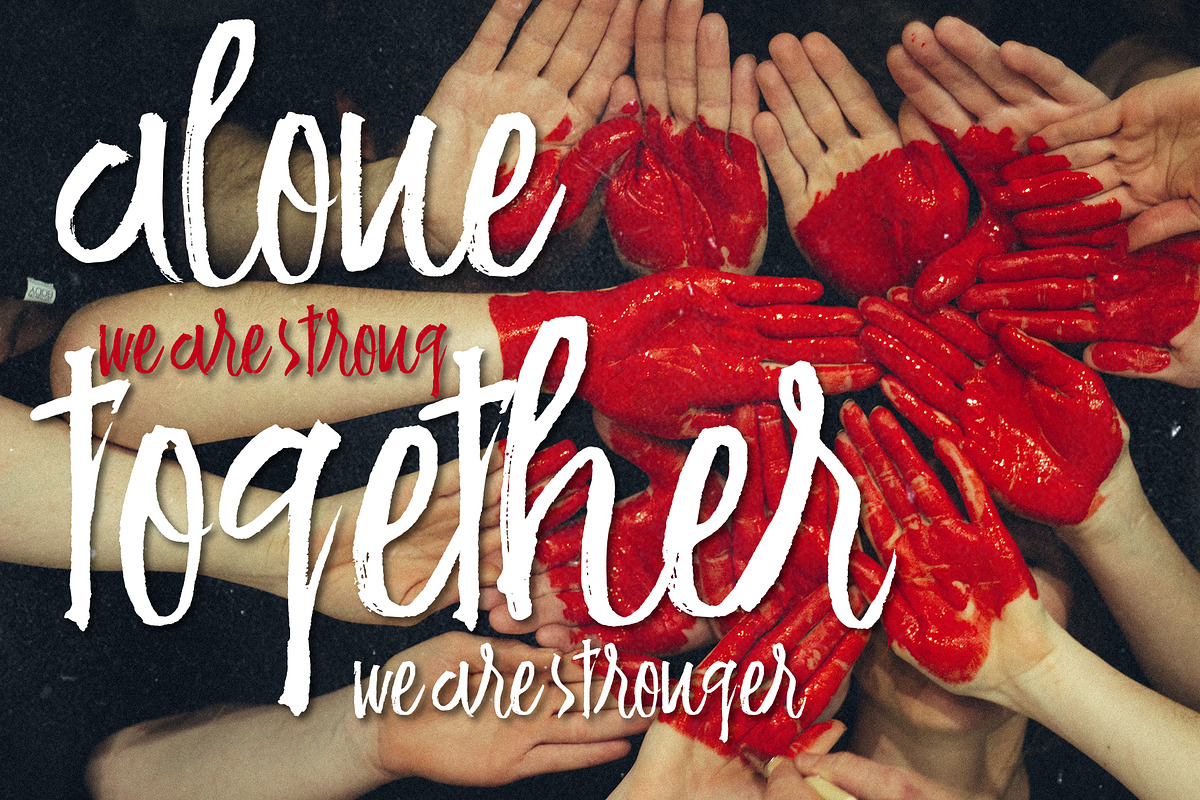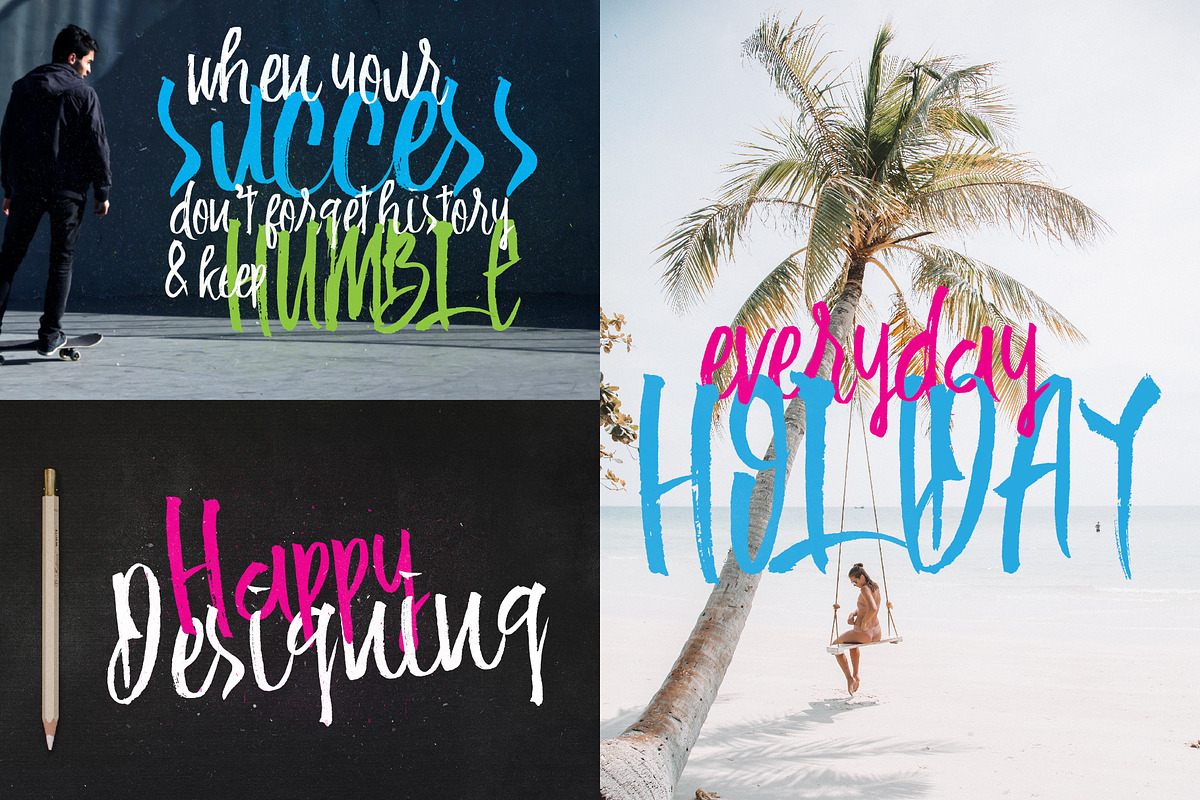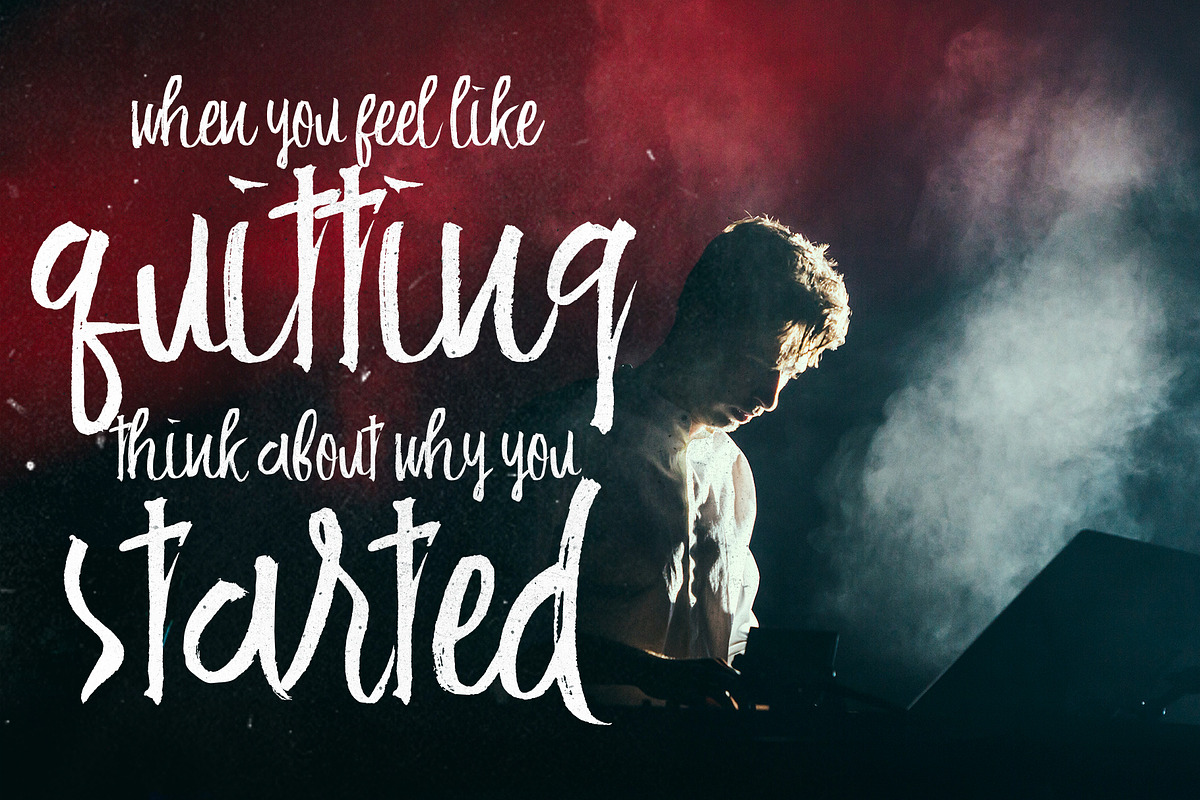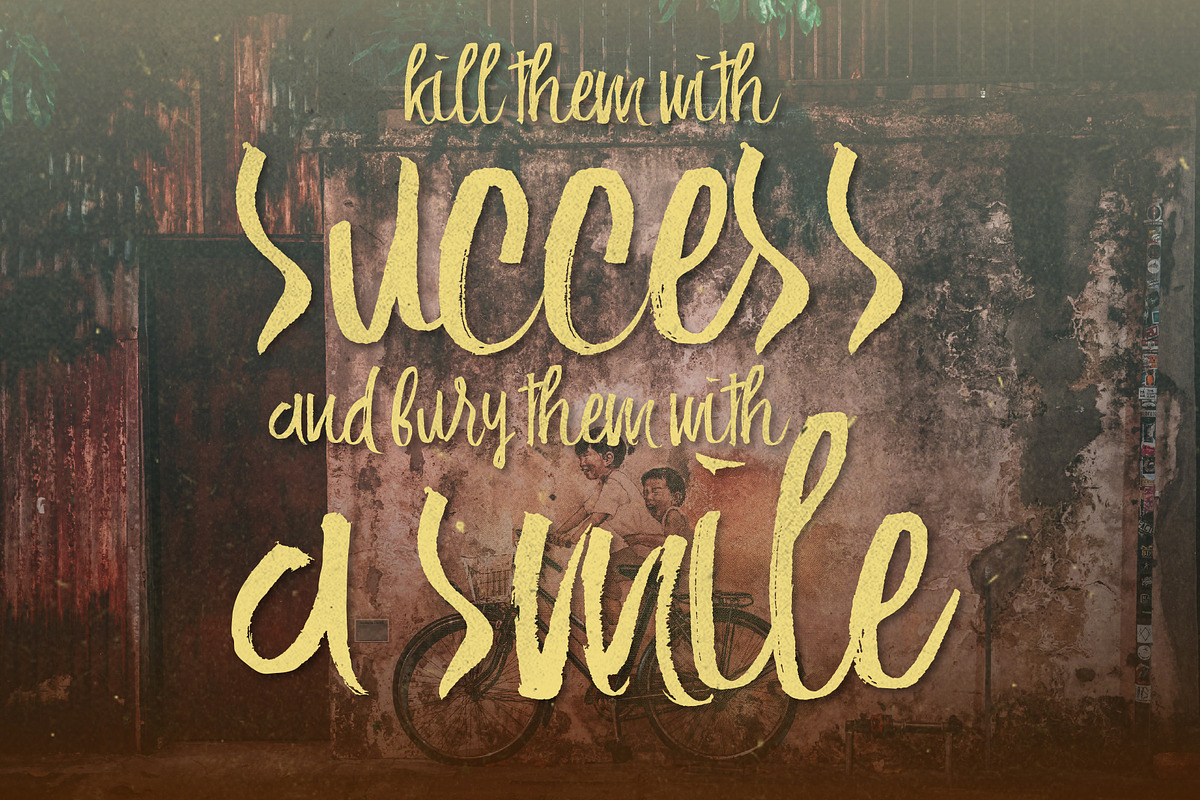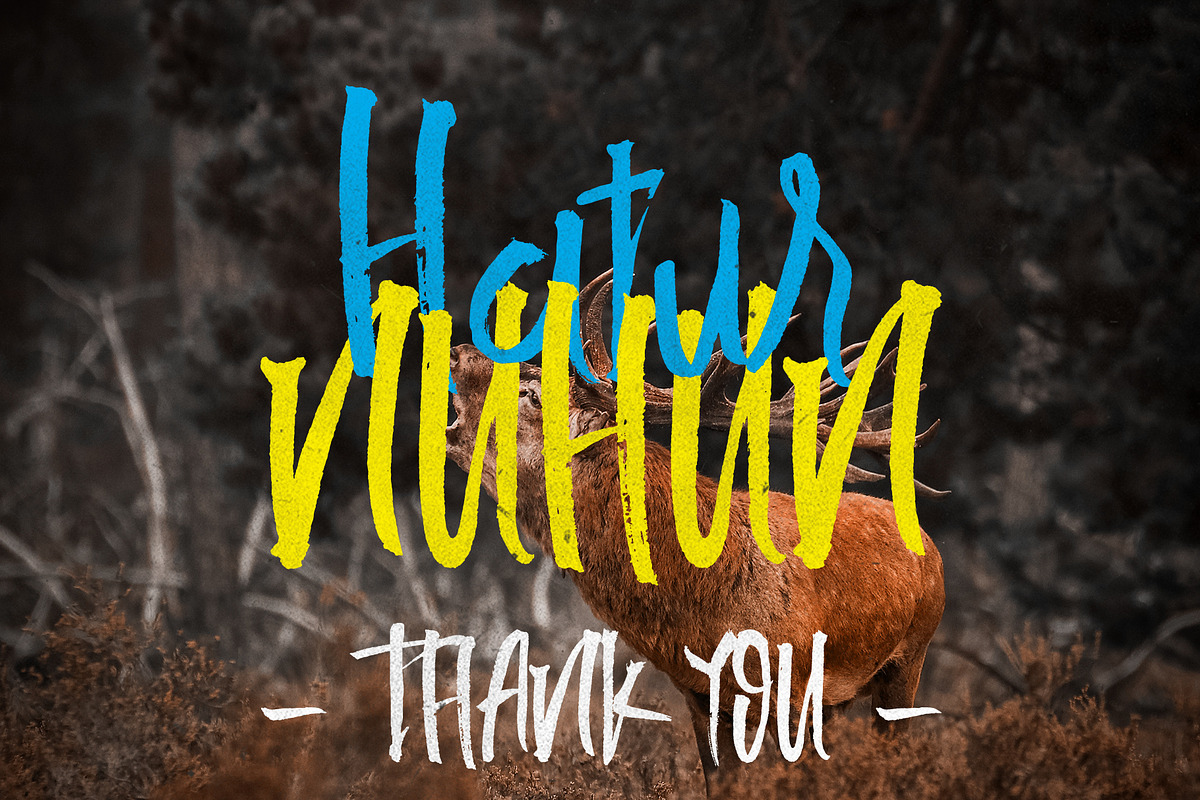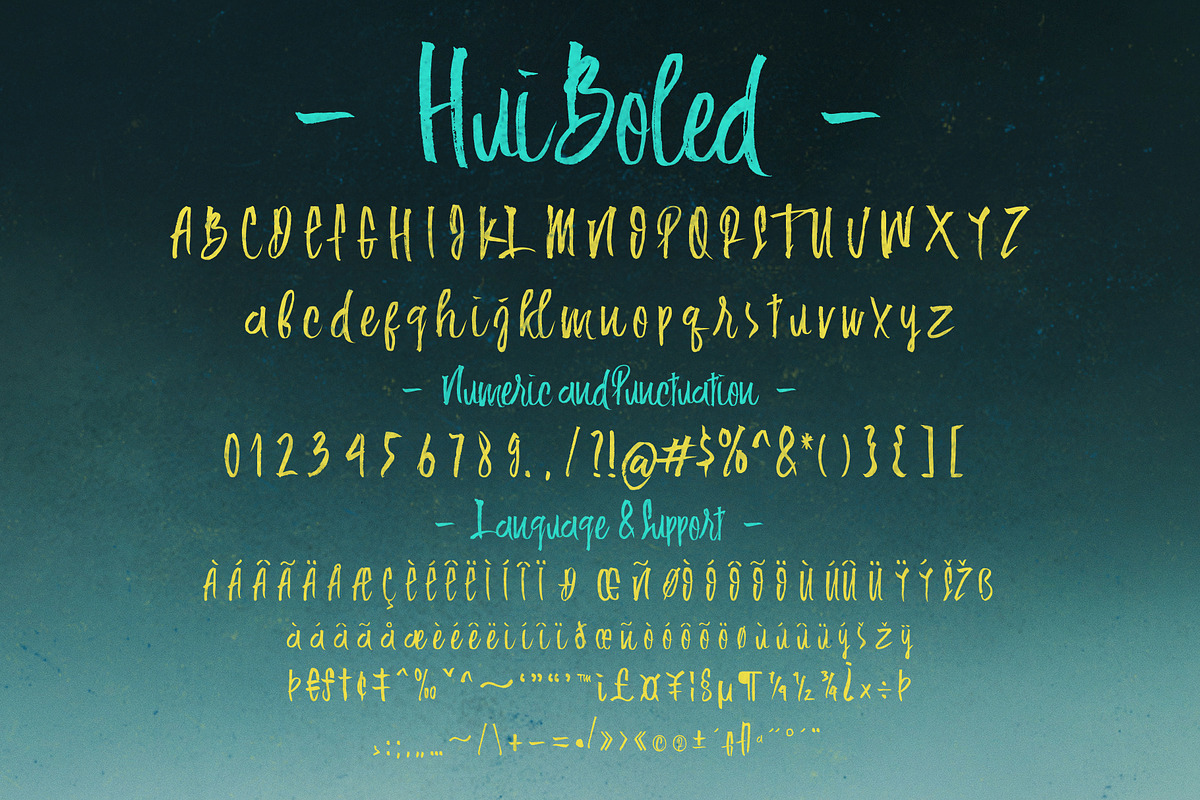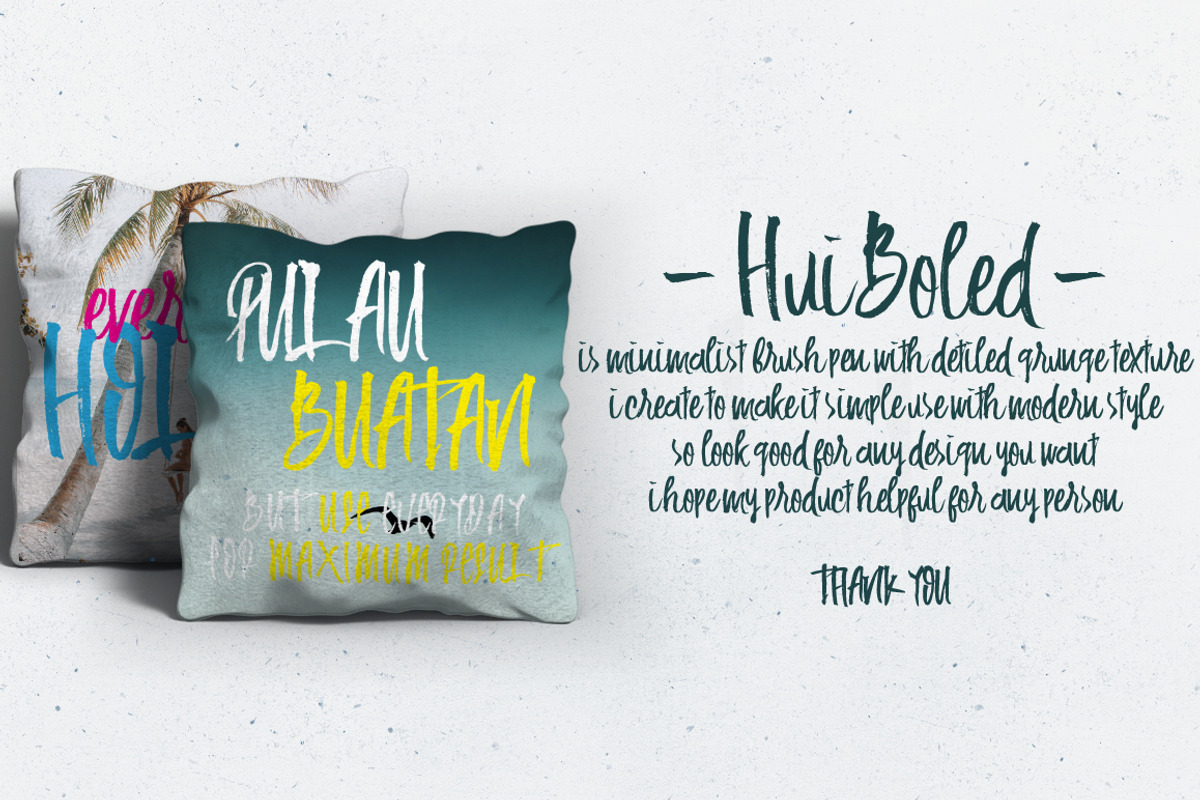
Hui Boled Hand Brush Typeface
is a beautiful hand brush with detile grunge texture make a good sense, on process i'm not many editing for this font so looks a naturaly hand brushes made.
Hui Boled is good for any project such as, poster, display, business card, sign, painting, poster, or anything with sport, adventure, wild, beach theme or etc.